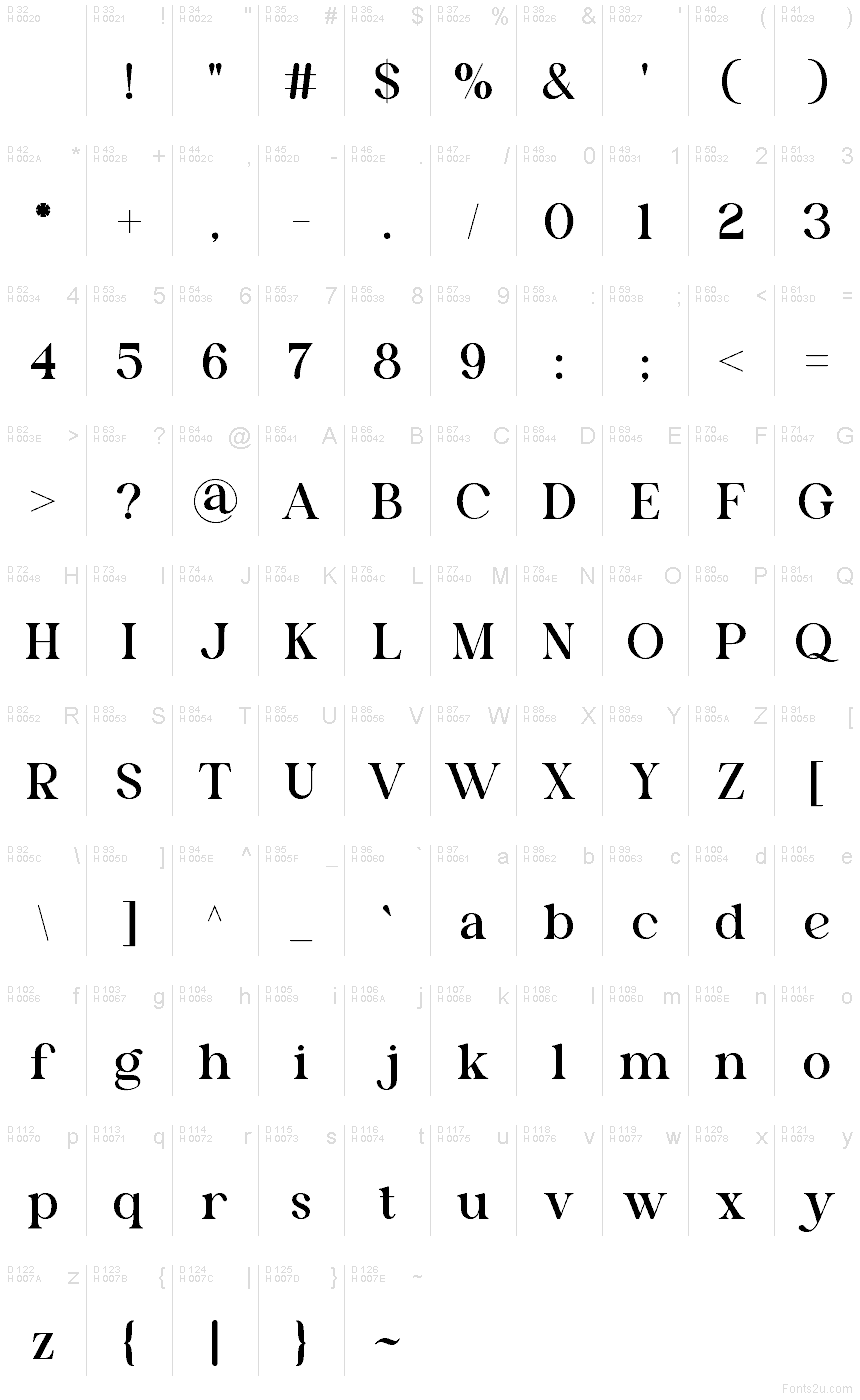
New Eviore
New Eviore font by ErmediaStudio is a free serif font. It stands out with sculpted, knife-edge serifs and dramatic thick-to-thin strokes that feel chiseled and glossy, like ink pulled tight across paper. The rhythm is upright and poised, yet the curves have a sensual, carved depth that gives headlines instant polish without looking stiff.
Using New Eviore, headlines snap into focus and carry a luxe, editorial tone. This free font shines on fashion branding, boutique logos, magazine covers, cosmetics packaging, poster titles, and chic invitations. Generous contrast creates a crisp sparkle at large sizes, while the compact spacing keeps lines tight and impactful. Pair it with a quiet, neutral grotesk for body copy, and let New Eviore handle the spotlight.